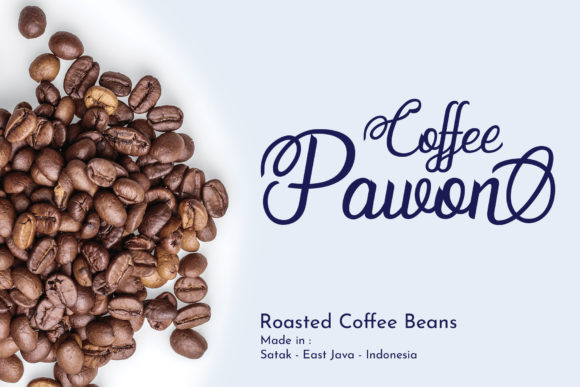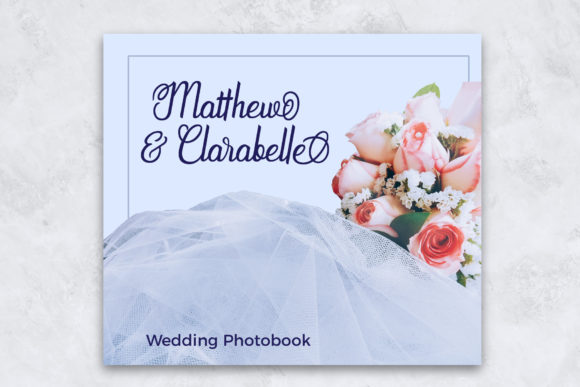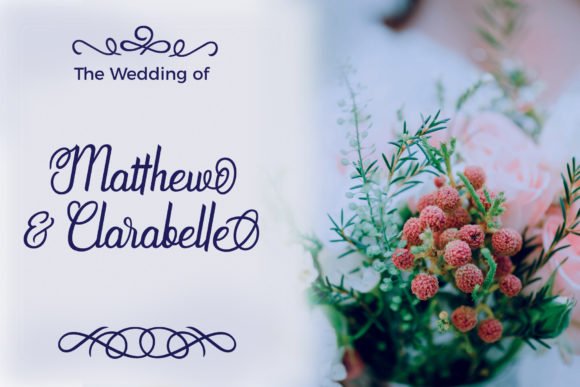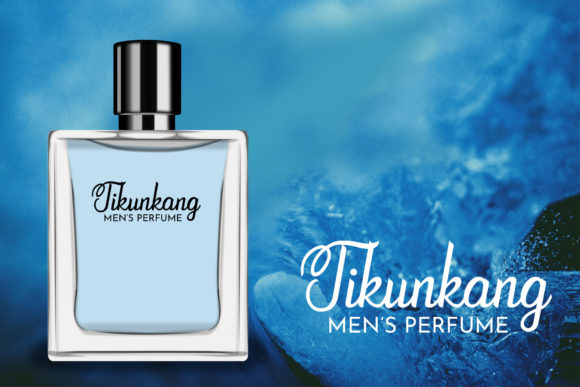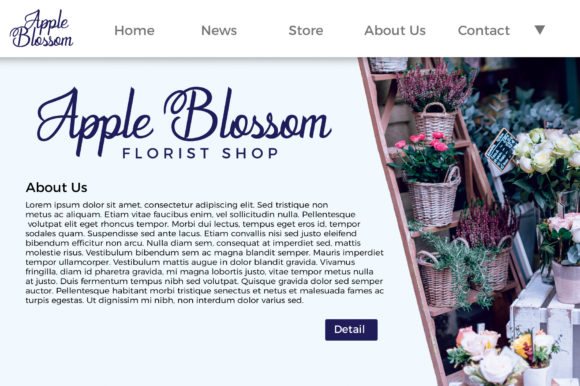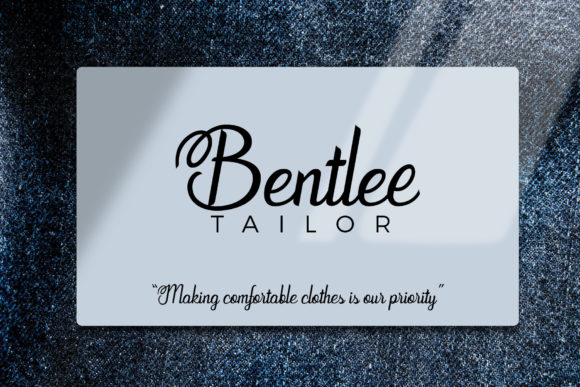
Introducing Elldier Font: Elevate Your Designs with Vintage Elegance
Are you a designer or crafter looking for a font that exudes sophistication and timelessness? Look no further than Elldier Font, a beautiful, well-balanced, and vintage-styled script font that’s perfect for fashion branding, editorial designs, and more. In this article, we’ll dive into the features and benefits of Elldier Font, and explore how it can elevate your designs to the next level.
A Beautifully Crafted Font
Elldier Font is a masterfully crafted font that boasts smooth curves and a balanced design. Its vintage style is reminiscent of classic typography, yet it remains modern and fresh. The font’s elegant lines and curves make it perfect for creating stunning fashion branding, editorial designs, and other creative projects.
One of the standout features of Elldier Font is its PUA (Private Use Area) encoding. This means that you can access all of the amazing glyphs and ligatures with ease, giving you unparalleled creative control over your designs. With PUA encoding, you can effortlessly swap out characters and ligatures to create unique and eye-catching text arrangements.
Perfect for Fashion Branding and Editorial Designs
Elldier Font is specifically designed with fashion branding and editorial designs in mind. Its elegant and sophisticated style makes it perfect for:
- Fashion logos and branding
- Magazine and editorial designs
- Wedding and event invitations
Why Choose Elldier Font?
So, why should you choose Elldier Font for your next design project? Here are just a few compelling reasons:
- Unique and distinctive style: Elldier Font boasts a unique and distinctive style that will set your designs apart from the crowd.
- Elegant and sophisticated: The font’s elegant and sophisticated style makes it perfect for high-end fashion branding and editorial designs.
- Easy to use: With PUA encoding, you can access all of the font’s glyphs and ligatures with ease, making it simple to create stunning designs.
- Versatile: Elldier Font can be used for a wide range of design projects, from fashion branding to editorial designs and more.
Tips for Using Elldier Font
To get the most out of Elldier Font, here are a few tips to keep in mind:
- Experiment with different sizes and styles: Elldier Font looks great in a variety of sizes and styles, so don’t be afraid to experiment and find the perfect combination for your design.
- Pair with complementary fonts: Pair Elldier Font with complementary fonts to create a unique and eye-catching typography arrangement.
- Use glyphs and ligatures: Take advantage of Elldier Font’s PUA encoding and use the glyphs and ligatures to add visual interest to your designs.
| Font Name | Elldier Font |
| Author | Midvel |
In conclusion, Elldier Font is a beautiful, well-balanced, and vintage-styled script font that’s perfect for fashion branding, editorial designs, and more. With its PUA encoding and elegant design, it’s easy to see why Elldier Font is a top choice among designers and crafters. Whether you’re looking to create stunning fashion branding or editorial designs, Elldier Font is the perfect choice. So why wait? Download Elldier Font today and elevate your designs to the next level!